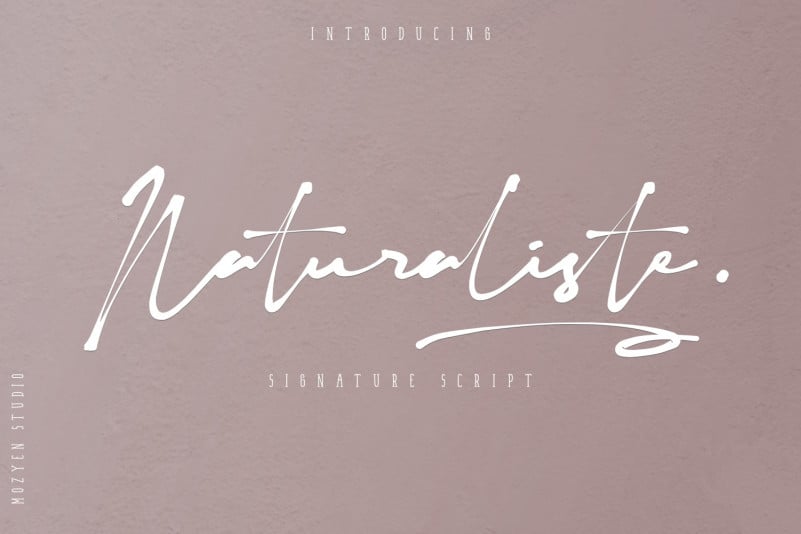
Naturaliste Font
Naturaliste Script Font
Naturaliste Script Font is a modern, handwritten type designed for an elegant and authoritative design. Made from font designer named mozyenstudio. This is perfect for your feminine design, you can also make a branding such as cosmetics products, Branding photography, invitation designs or your trademark.